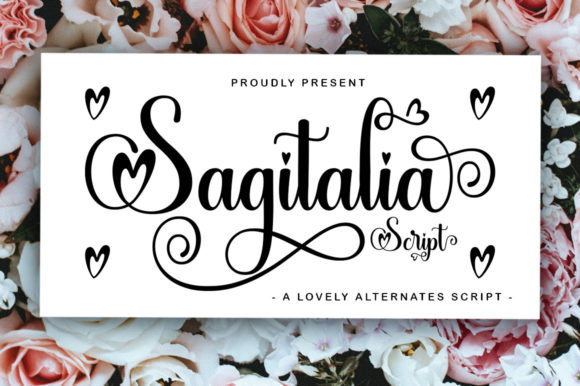
Sagitalia Script: A Font with Authentic Charm
There’s a certain quality in handwritten text that digital fonts often struggle to capture. It’s not just about the loops and swashes, but the feeling of a personal touch, a confident hand behind the message. Sagitalia Script is a premium font that bridges this gap beautifully. It’s a sophisticated handwritten typeface designed to inject personality and authenticity into your projects without sacrificing professionalism. This isn't a casual, messy scrawl; it's a refined script that carries weight and warmth, making it a versatile tool for anyone looking to create a genuine connection with their audience.
The Anatomy of a Confident Script
At its core, Sagitalia Script is a study in balanced elegance. The letterforms flow with a natural, rhythmic consistency that mimics the work of a skilled calligrapher. You’ll notice the subtle variation in stroke width, giving the characters a dynamic, living quality. The connections between letters are thoughtfully designed, ensuring smooth readability even in longer words. Unlike overly ornate scripts that can become illegible, this font prioritizes clarity. Its x-height is generous, and the counters (the enclosed spaces in letters like ‘o’ and ‘e’) are open, which greatly aids in legibility at various sizes. This careful construction makes it a reliable display font that feels both personal and polished.
The personality of Sagitalia Script is one of approachable confidence. It doesn’t shout; it speaks clearly and with charm. This makes it exceptionally adaptable. For a wedding invitation, it conveys romance and care. On a coffee shop menu, it suggests artisanal quality. In a brand’s logo, it can communicate creativity and human-centric values. The key is its versatility—it can be the star of the show in a headline or serve as a supportive accent in a more complex layout. Its style avoids fleeting trends, positioning it as a timeless asset in your collection of design assets.
Where This Handwritten Font Truly Shines
The real test of any creative font is how it performs in real-world applications. Sagitalia Script excels across a surprising range of mediums, proving its worth far beyond simple greeting cards.
In Branding and Logo Design: This is where the font can be transformative. For businesses in the lifestyle, wellness, food, or artisanal sectors, Sagitalia Script can form the cornerstone of a memorable brand identity. Imagine it for a boutique bakery’s logo, a yoga studio’s signage, or a handmade cosmetics line. It instantly communicates a story of craftsmanship and care. When paired with a clean sans serif font for body text, it creates a professional yet welcoming visual hierarchy.
For Marketing and Social Media: In the noisy digital landscape, authenticity cuts through. Using Sagitalia Script in your social media graphics can make quotes, announcements, and promotional posts feel more personal and engaging. It’s perfect for Instagram story highlights, Pinterest pins, or Facebook cover images. The font’s inherent charm helps stop the scroll, inviting the viewer to read the message. For email marketing headers or blog post titles, it adds a touch of personality that a standard serif font or sans serif might lack.
In Publishing and Editorial Design: While not suited for long body copy, this script font is a powerful tool in a designer’s kit for editorial design. Think chapter openers in a cookbook, pull quotes in a magazine article, or featured titles in a lifestyle blog. It draws the eye and breaks up the monotony of traditional text blocks, guiding the reader through the content with visual interest. Paired with a robust serif font for the main text, it creates a classic, readable, and visually appealing spread.
For Packaging and Labels: Product packaging is a tactile experience, and typography plays a huge role. Sagitalia Script can elevate a product label from ordinary to special. It works wonderfully for gourmet food items, craft beverages, artisanal candles, or boutique stationery. The font suggests that there is a real person and a story behind the product, which can be a powerful differentiator on a crowded shelf.
Practical Guidance for Designers and Creators
Adopting a new premium font like Sagitalia Script requires a thoughtful approach. Here’s how to integrate it effectively into your workflow.
Evaluate the Project Fit: Before you dive in, consider the project’s tone and audience. Sagitalia Script is ideal for projects that benefit from warmth, personality, and a human touch. It might be less appropriate for highly technical, corporate, or formal financial documents where a neutral sans serif or authoritative serif would be more suitable. Always ask: does this font amplify the message or distract from it?
Master the Art of Font Pairing: The true power of a display font is often unlocked in combination. Sagitalia Script pairs exceptionally well with simple, geometric sans serifs (like Montserrat or Lato) for a modern, clean contrast. For a more classic, editorial feel, try pairing it with a traditional serif (like Garamond or Baskerville). The general rule is to let the script be the accent—use it for headlines, logos, or short bursts of text, and let a more neutral font handle the heavy lifting of paragraphs and captions.
Test for Readability at Every Size: Always conduct a thorough readability test. View your design on both a desktop monitor and a mobile phone screen. Print a sample if the project is for physical media. Check the legibility of individual characters, especially in tricky combinations like ‘ol’ or ‘be’. The font’s design helps, but your layout, color contrast, and sizing are critical final steps.
In the end, Sagitalia Script is more than just a set of glyphs; it’s a tool for storytelling. Its strength lies in its ability to convey confidence and authenticity in a digital age. By understanding its characteristics and applying it thoughtfully, you can leverage this modern typography asset to create designs that don’t just look good, but feel genuinely connected to the people they’re meant to reach. It’s a reminder that the best design often carries a human signature.